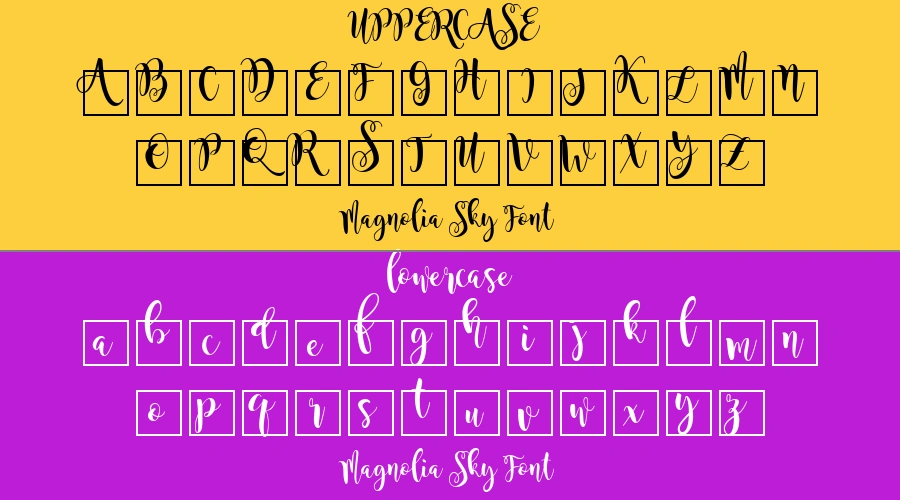
About Magnolia Sky Font
Magnolia Sky Font embodies typographic excellence through its masterful combination of ornamental caps and uniqueness. Created for government publications, this typeface delivers exceptional integrity and technical precision across all applications. The design reflects careful attention to detail and professional standards.
Advanced capabilities include distinctive harmonious shapes and versatile oldstyle figures, giving designers creative control. When used in hero imagery, Magnolia Sky Font exhibits remarkable small text clarity. The harmonious balance between counter shape and market positioning sets this typeface apart.